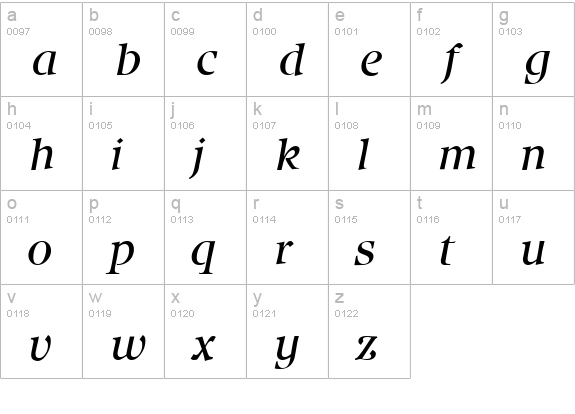
Isbell Italic is a distinctive, italic variant in the Isbell typeface family \xE2\x80\x94 well suited to design and typography projects.
Isbell Italic font is a stunning typeface that exudes elegance and sophistication. Its sleek and slanted design adds a touch of grace to any project, making it perfect for both professional and creative endeavors. With its delicate strokes and perfectly balanced curves, Isbell Italic effortlessly captures attention and leaves a lasting impression. This font offers a unique blend of modernity and classic style. It is ideal for use in branding, logo design, advertising, packaging, and more. Whether you're creating a luxurious fashion magazine, designing a high-end website, or crafting an invitation to an exclusive event, Isbell Italic will elevate your work to new heights. One of the best things about Isbell Italic font is that it is freely available to download at FontsMarket.com. This means that you can easily access and use this exceptional typeface without any restrictions. It allows you to unleash your creativity and bring your visions to life, all without having to spend a penny. The versatility of Isbell Italic font is truly remarkable. Its legibility and readability make it perfect for both small and large text sizes. The font's clean lines and refined details ensure that each character stands out, making it effortless to read even in lengthy paragraphs. Isbell Italic font is designed with precision and attention to detail, ensuring that it looks impeccable on any screen or print medium. Its high-quality and professional appearance make it a favorite among designers and typographers alike. In conclusion, Isbell Italic font is a captivating typeface that adds a touch of sophistication to any design project. Its sleek and slanted design, combined with its versatility and availability as a free download on FontsMarket.com, make it a must-have for any designer looking to make a lasting impression.